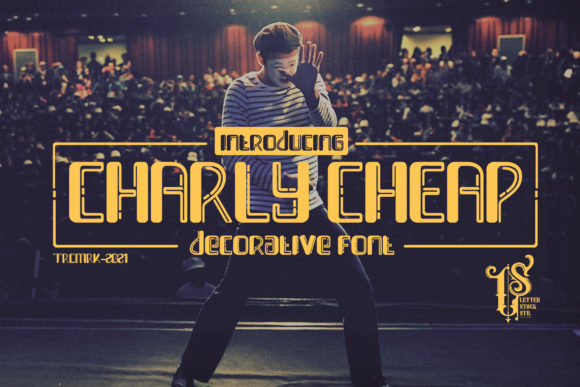
Welcome to the realm of typography, where Charly Cheap Font reigns supreme! Immerse yourself in the captivating world of display fonts, where every letter dances with character. Crafted with meticulous attention to detail by our visionary designer, Gumacreative, Charly Cheap is a font that will set your designs apart, transporting you to an era of retro charm mingled with modern flair.
With its distinctive curves and sharp angles, Charly Cheap is a visual masterpiece that will elevate your creations to unparalleled heights. Whether you're crafting eye-catching posters, designing unforgettable logos, or adding a touch of nostalgia to your website, this font is your gateway to boundless possibilities. Its versatility knows no bounds, making it the perfect choice for any project that demands impact and style.
Imagine the thrill of your customers' eyes lighting up as they encounter your designs adorned with Charly Cheap. Its playful spirit will evoke a sense of joy and nostalgia, while its undeniable boldness commands attention. Your creations will become the talk of the town, leaving a lasting impression that will turn prospects into loyal fans.